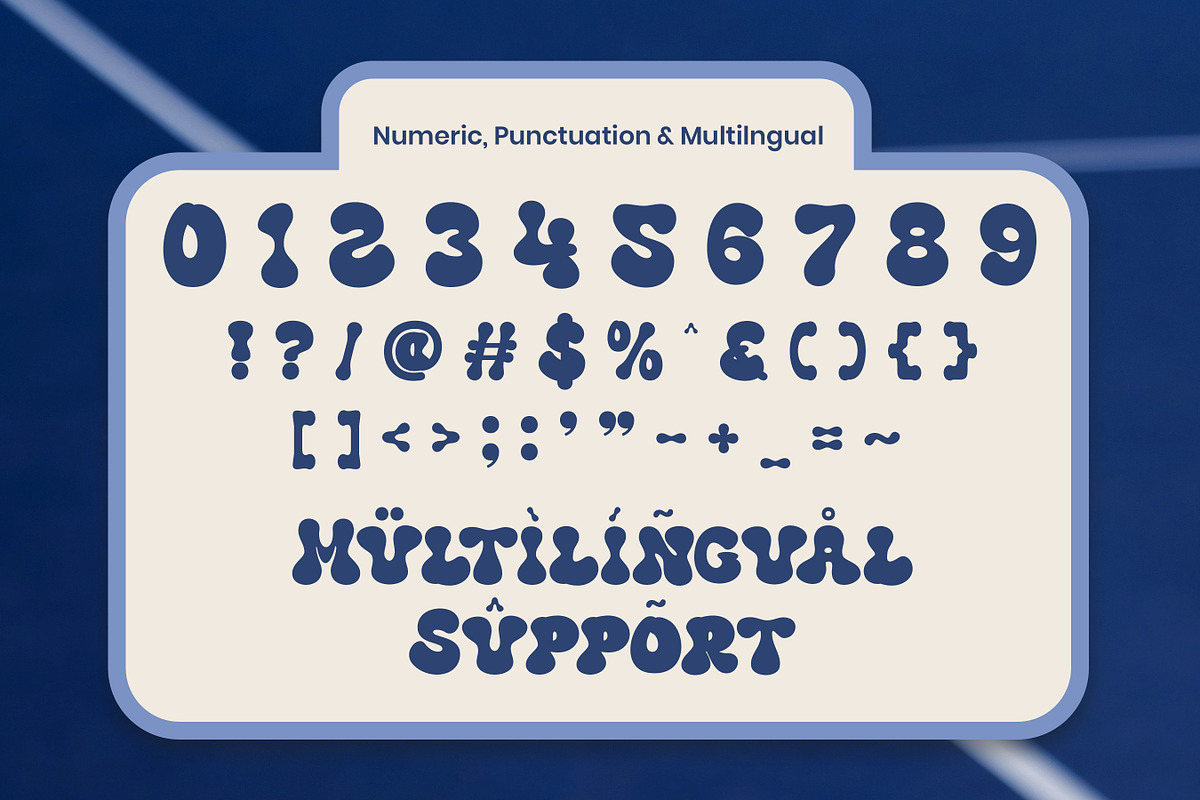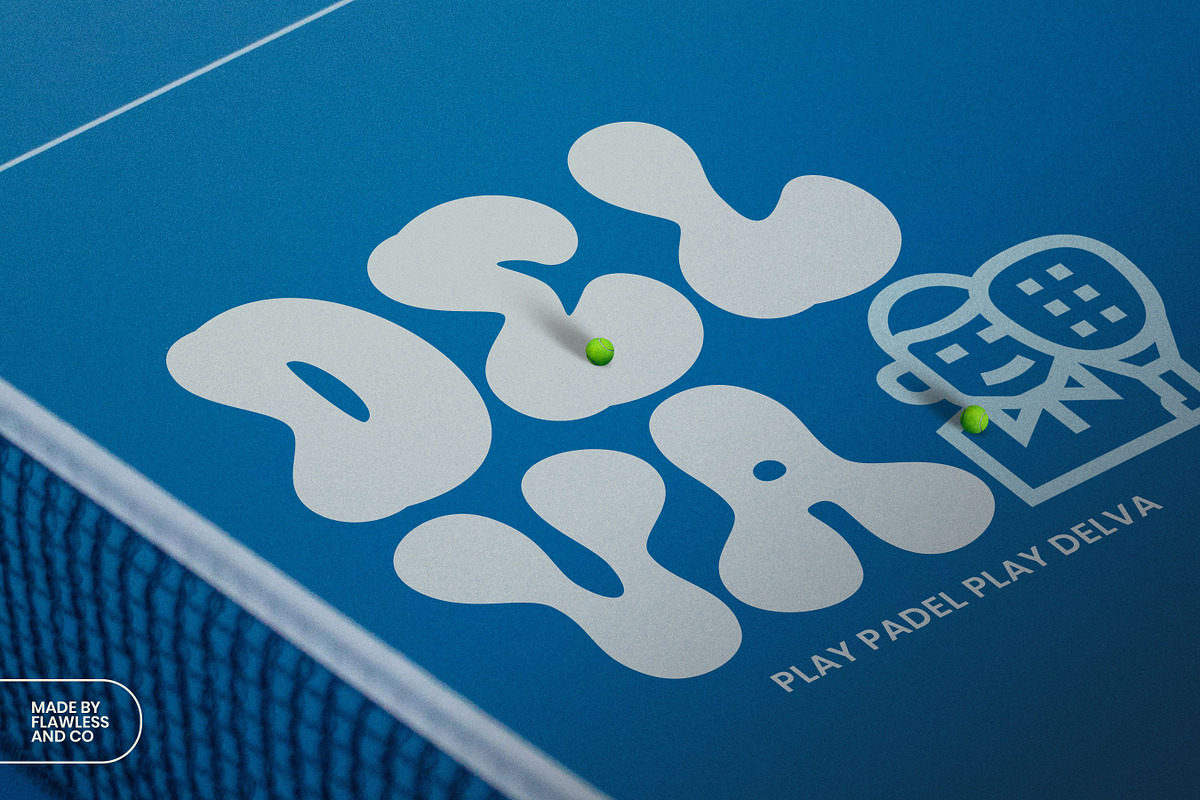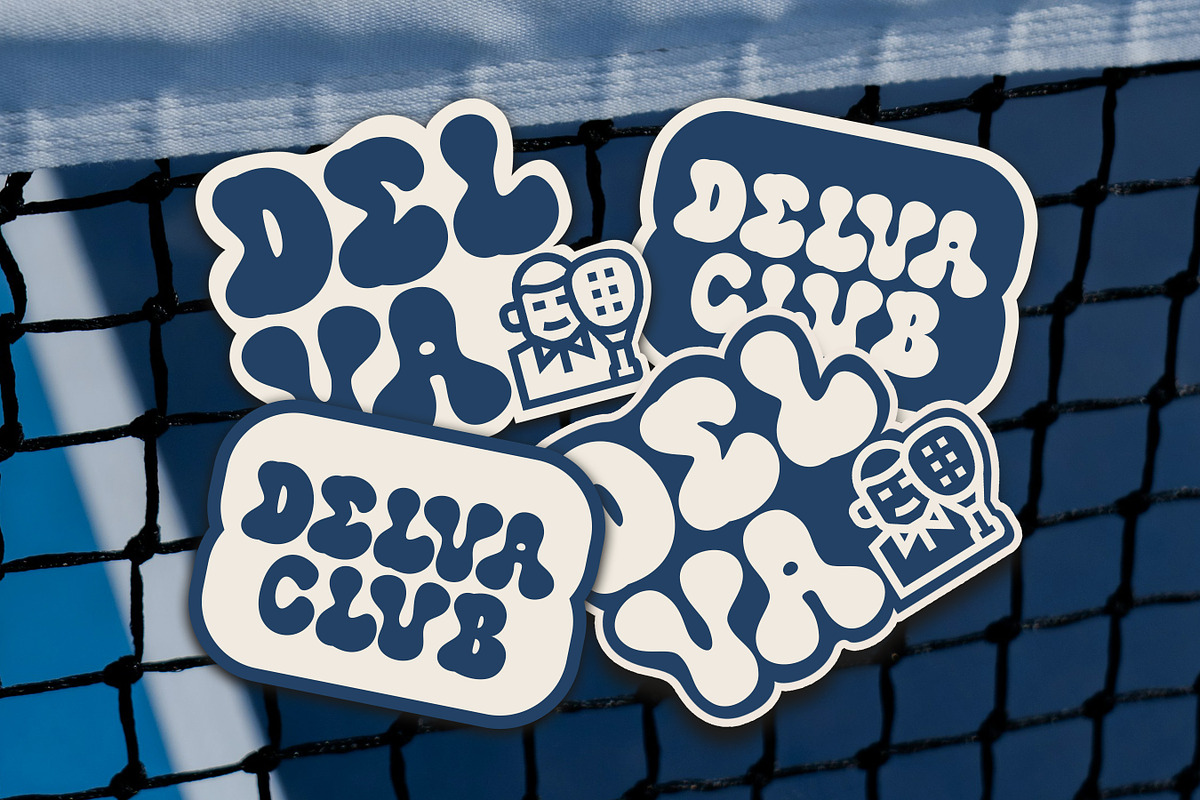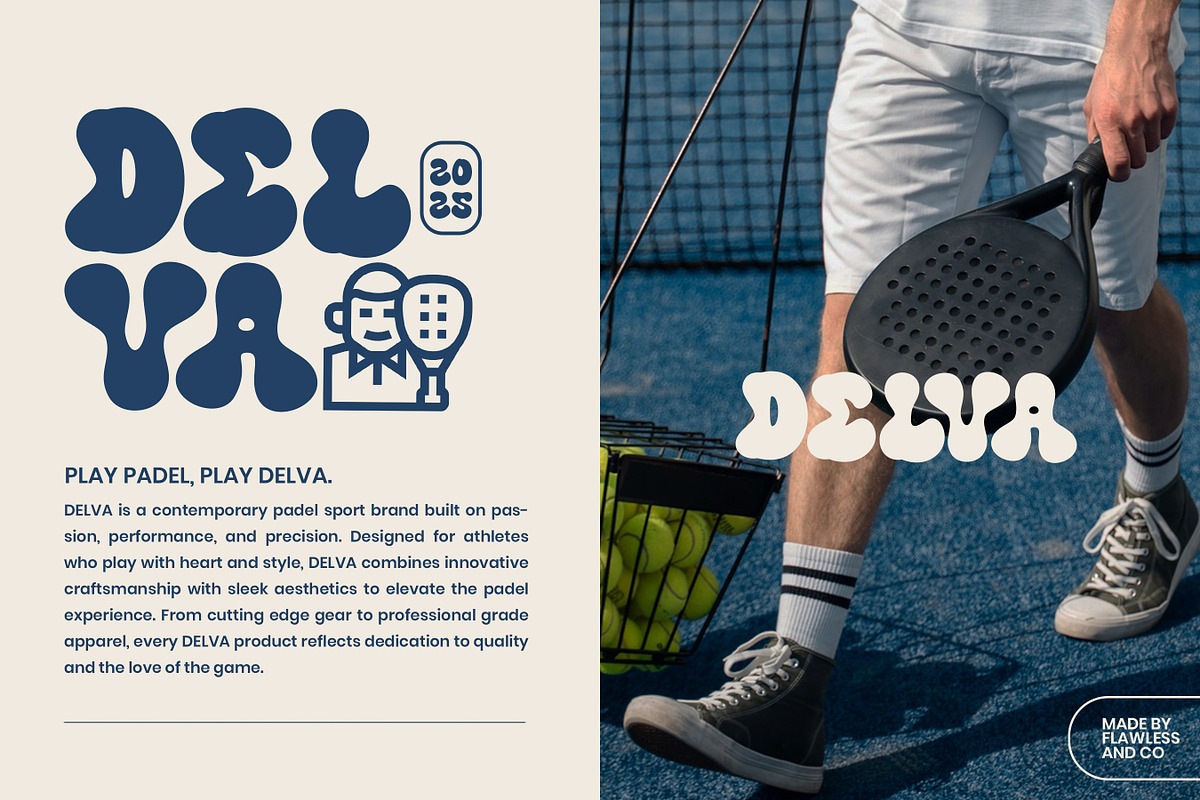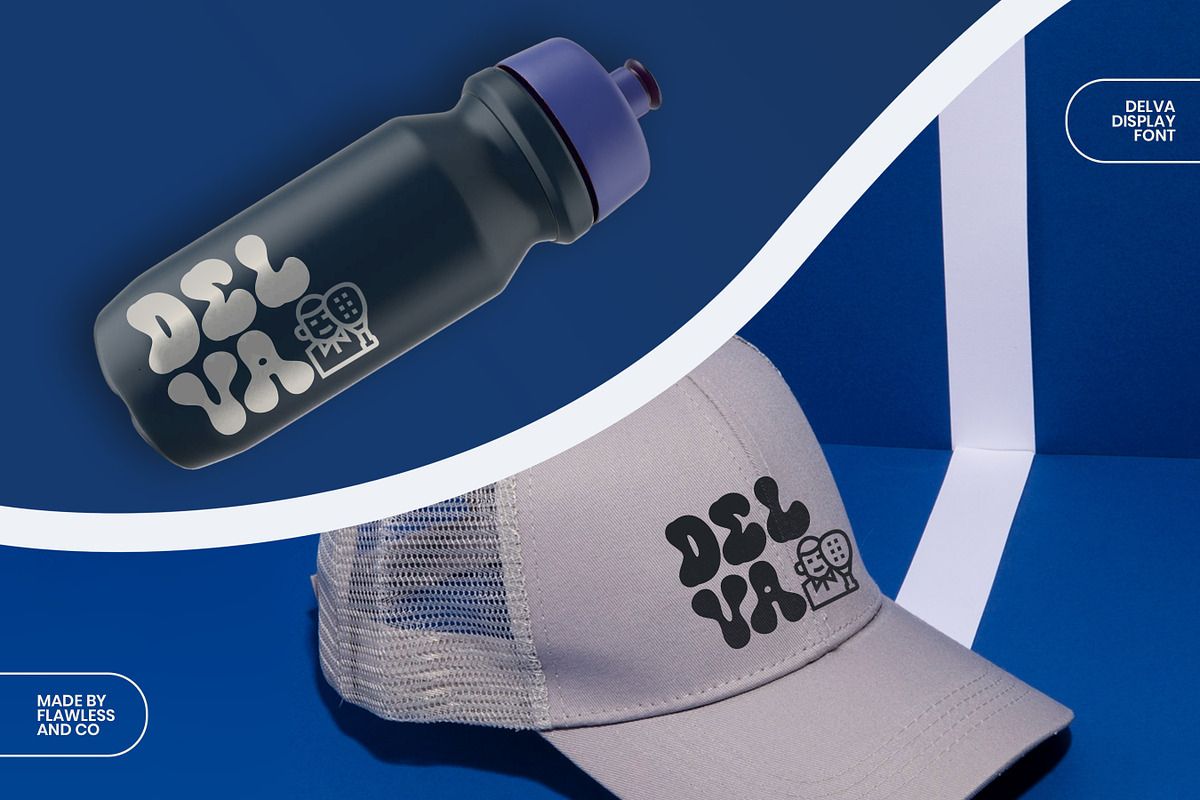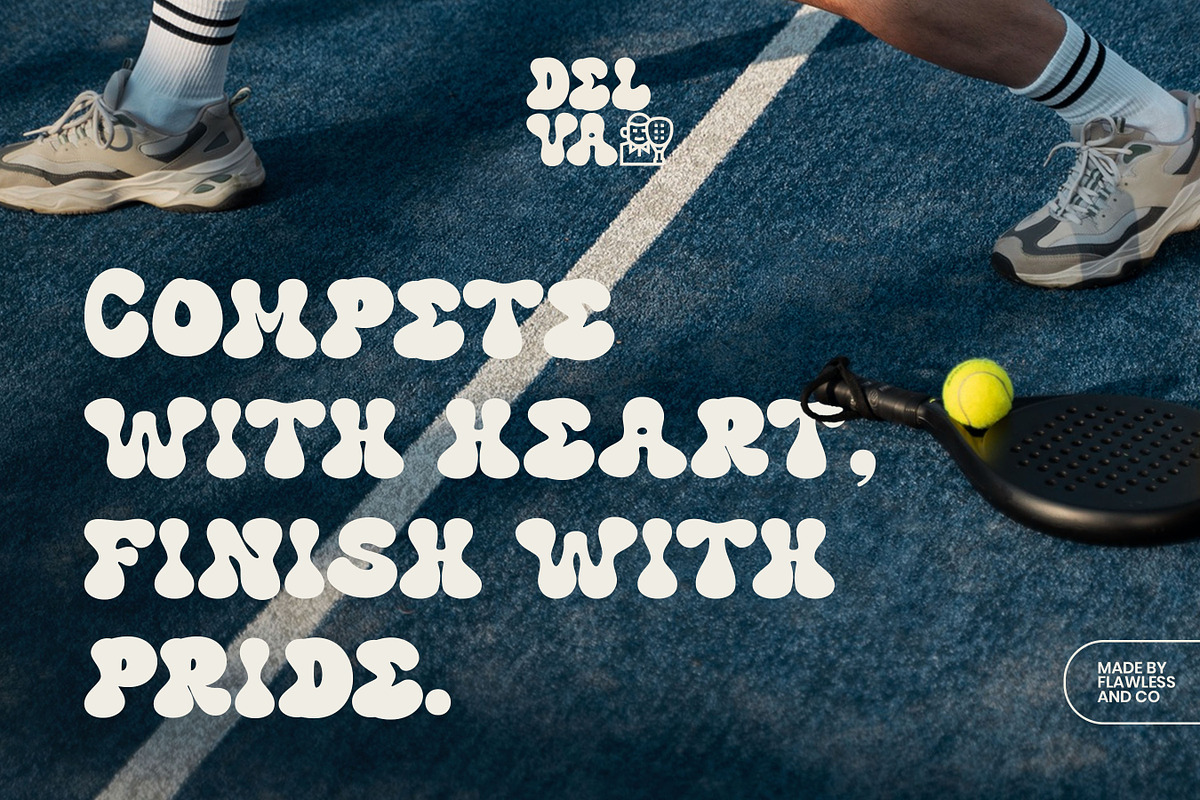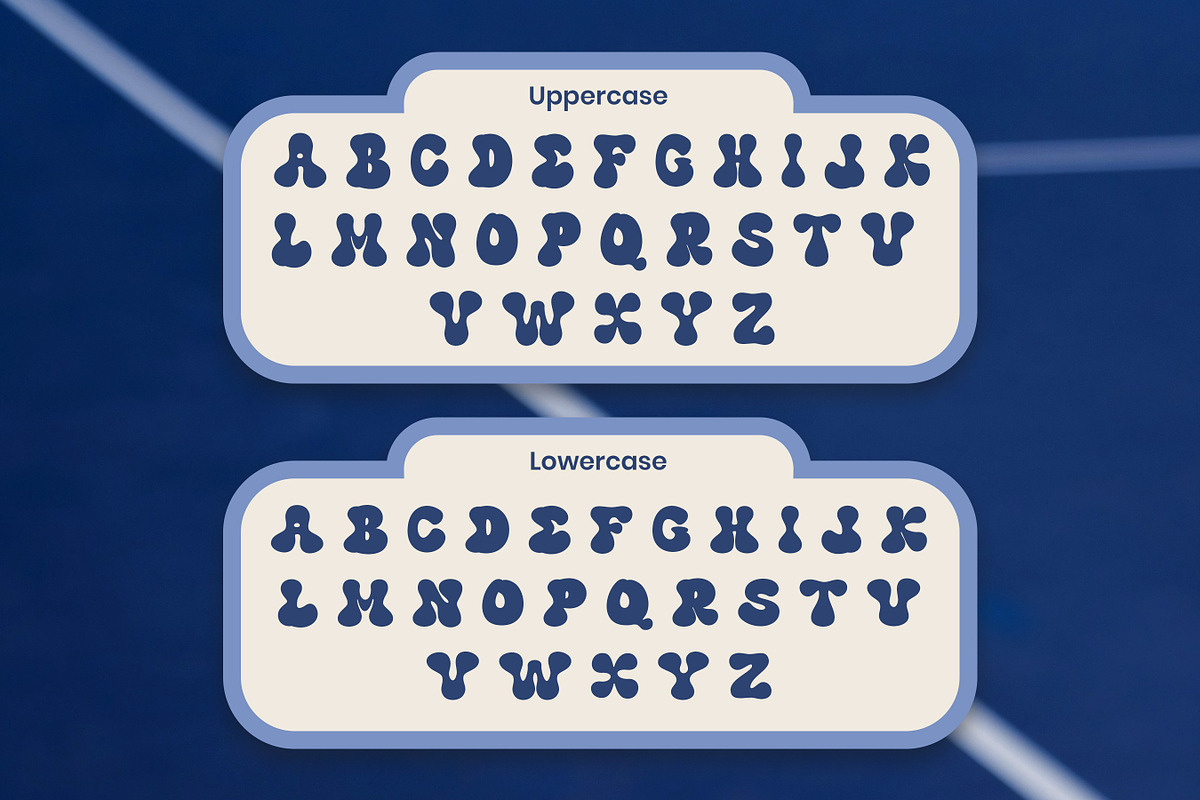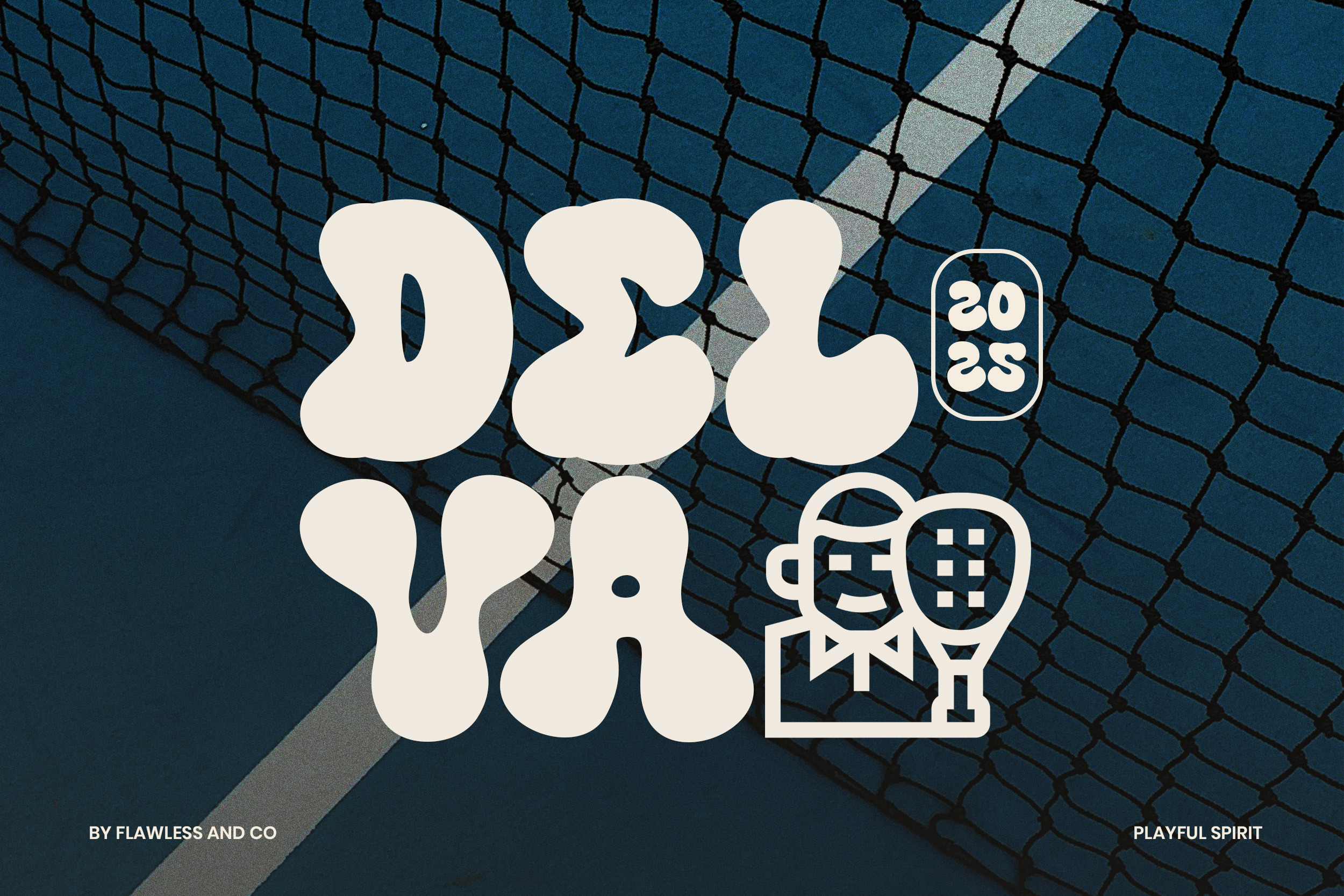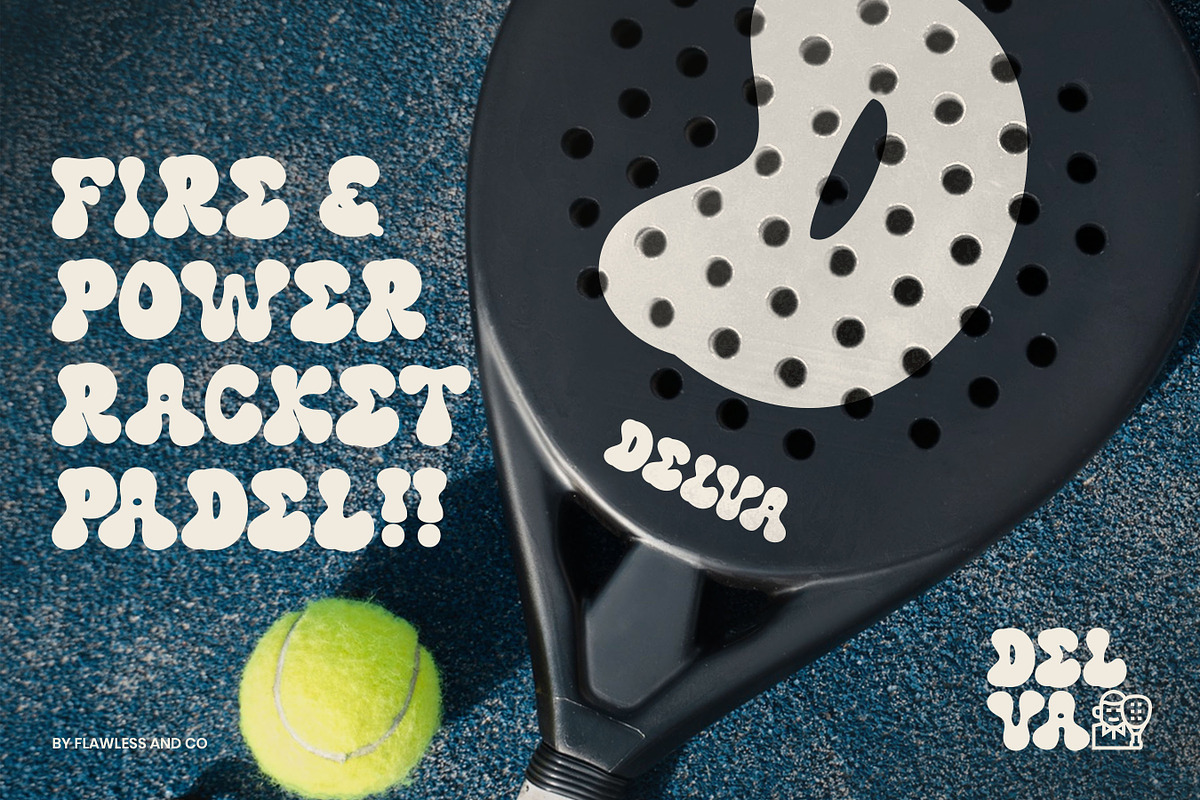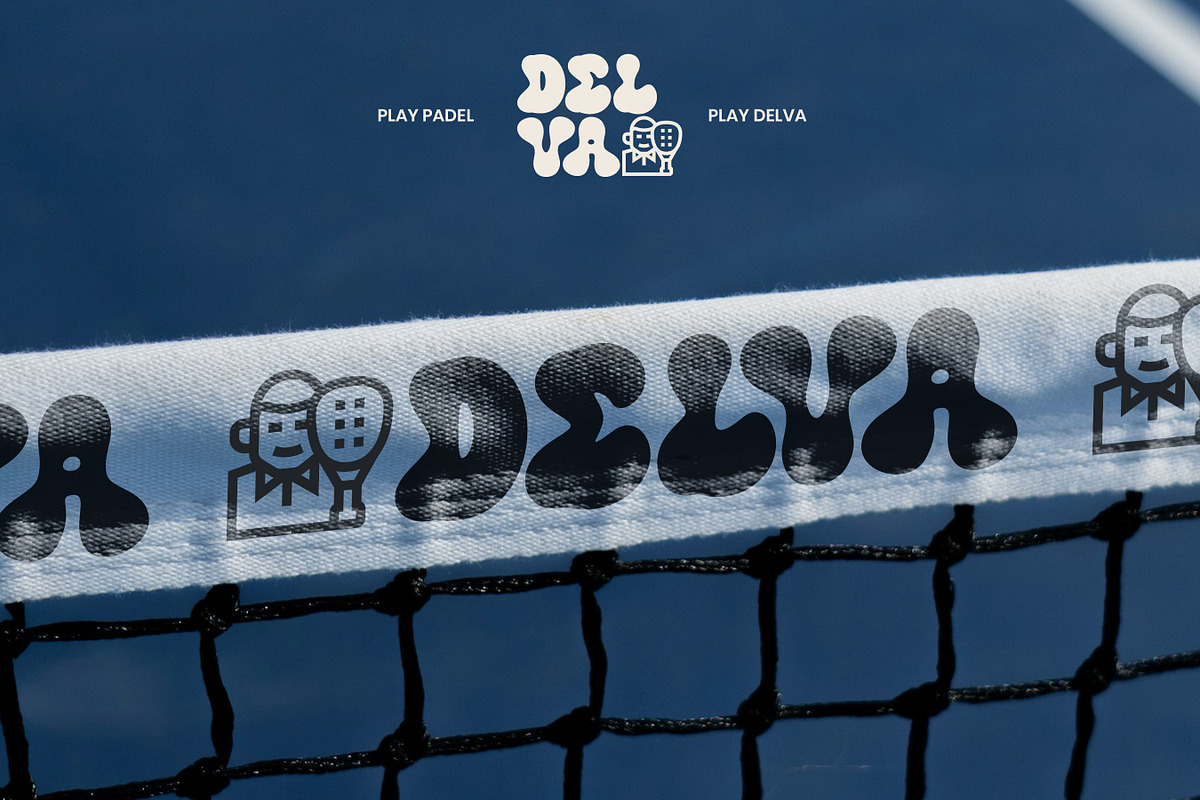
Delva - Display Typeface Font
Delva is a bold and expressive display typeface that brings a burst of energy to any design. Inspired by playful retro aesthetics, Delva combines organic shapes with smooth curves, creating a fun and distinctive personality that stands out in any context. Perfect for designers who want to convey a lively, creative, and modern vintage vibe, Delva is ideal for branding, posters, packaging, sports visuals, and social media graphics. Its unique, bouncy letterforms add a touch of personality and movement, making every word feel dynamic and full of spirit.
Who Should Use Delva?
Delva is perfect for designers, artists, and creative brands who love to experiment with bold and expressive typography. Whether you’re building a fun logo, vibrant poster, or nostalgic packaging design, Delva is made for those who want their work to feel playful, modern, and full of character.
It’s especially great for
- Branding designers seeking a unique and memorable look.
- Creative studios working on retro-inspired projects.
- Fashion, lifestyle, and sports brands that want a bold visual identity.
- Illustrators and digital artists who love dynamic, statement fonts.
- Social media creators who want typography that pops off the screen.
A Must-Have Font for "Brand and Logo" Creators and Designers
Delva is a must-have for brand and logo creators who want to inject personality and playfulness into their designs. Its bold, organic shapes and fun curves make every logo feel energetic and full of life. Whether you’re designing for a modern brand, creative agency, or lifestyle product, Delva helps your typography stand out while keeping a friendly and approachable vibe.
Why Choose Delva for "Brand and Logo" Projects?
Delva brings a perfect balance of fun and confidence to your brand identity. Its bold display style makes every word pop with energy, creating an eye-catching presence in logos, packaging, and creative visuals. The playful yet professional structure ensures that your design stays both expressive and readable.
Suitable For
- Branding and Logo Design,
- Product Packaging,
- Poster and Flyer Design,
- Merchandise and Apparel Design,
- Social Media Graphics,
- Event Titles and Invitations,
- Creative Headlines and Typography Artwork.